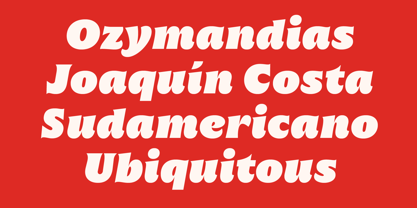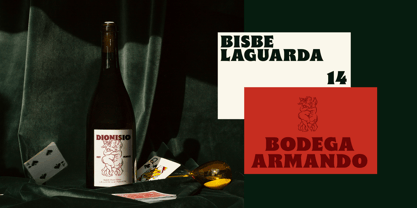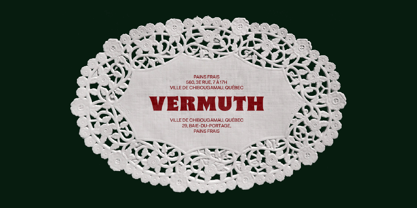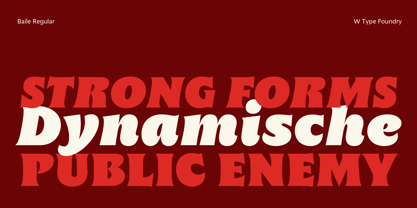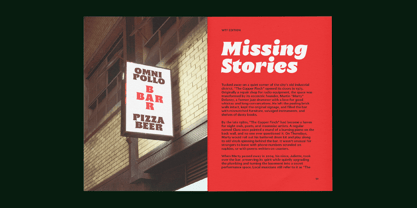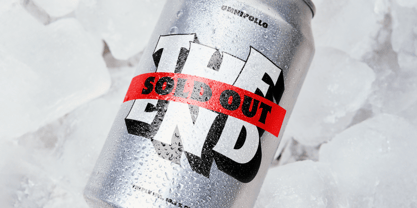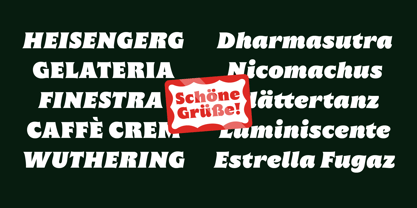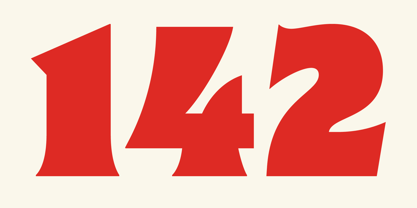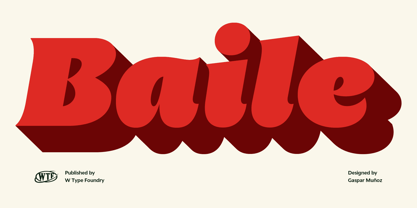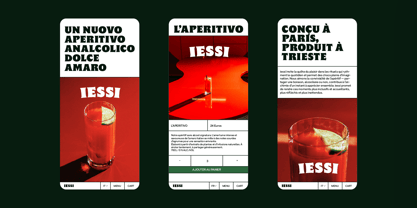
Baile
by W Type Foundry
The Baile Font Family was designed by Gaspar Muñoz and published by W Type Foundry. Baile contains 2 styles and family package options.
Baile is a serif display typeface inspired by ITC Benguiat, redesigned with adjusted proportions, distinctive terminals, and an extrabold style for greater visual weight. Its decorative personality and unique letterforms make it ideal for impactful headlines, book covers, posters, and editorial layouts. Available in Regular and Italic styles, it offers versatility for a wide range of creative applications.